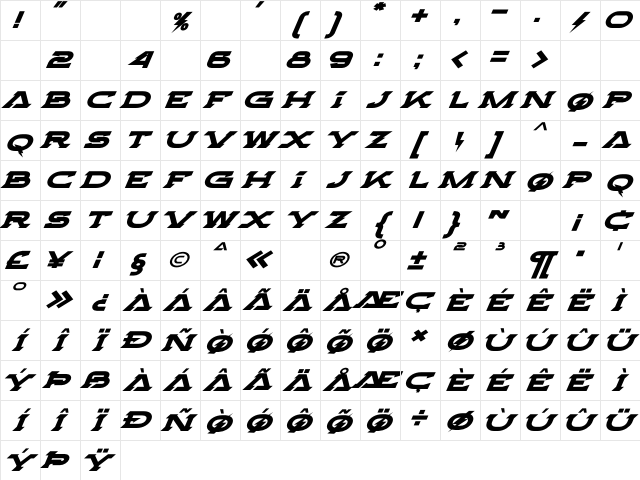
Roxies Regular Free Font
Roxies Regular
Foundry: Gassstype￿ Studio
Designer: Anang F & Malik Wsn | Gassstype￿ Studio 2022
Design Context for Roxies
Roxies is a composed and adaptable typeface that performs quietly and consistently across a wide range of design contexts.